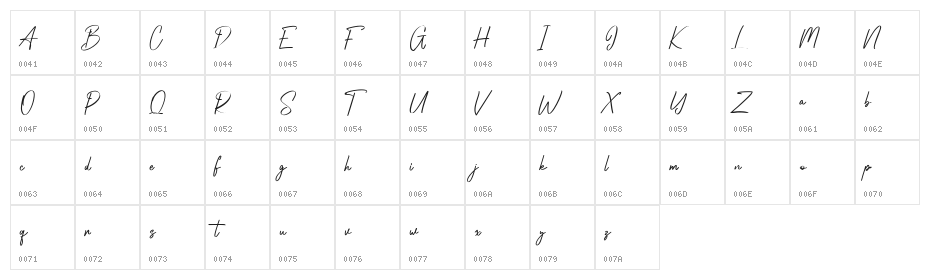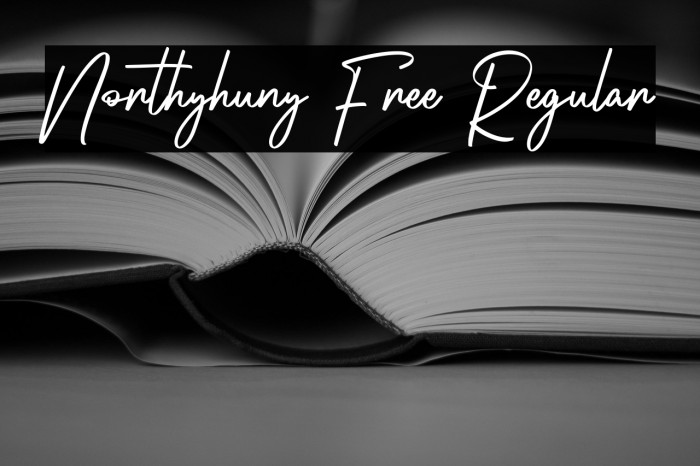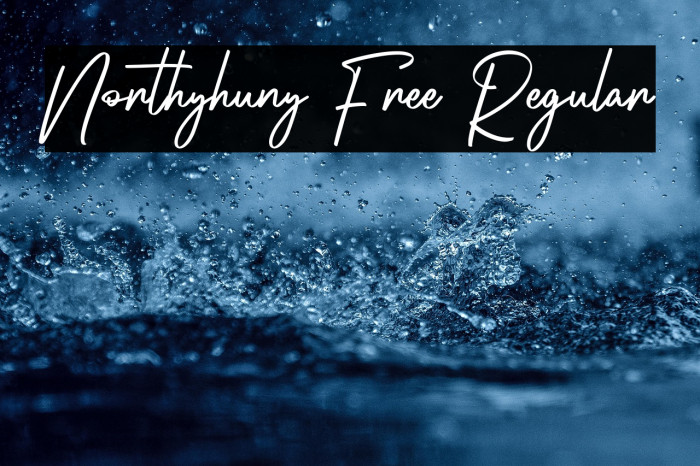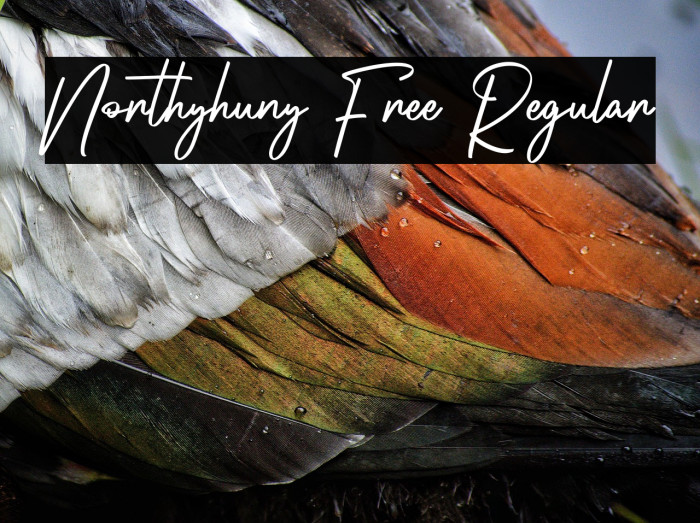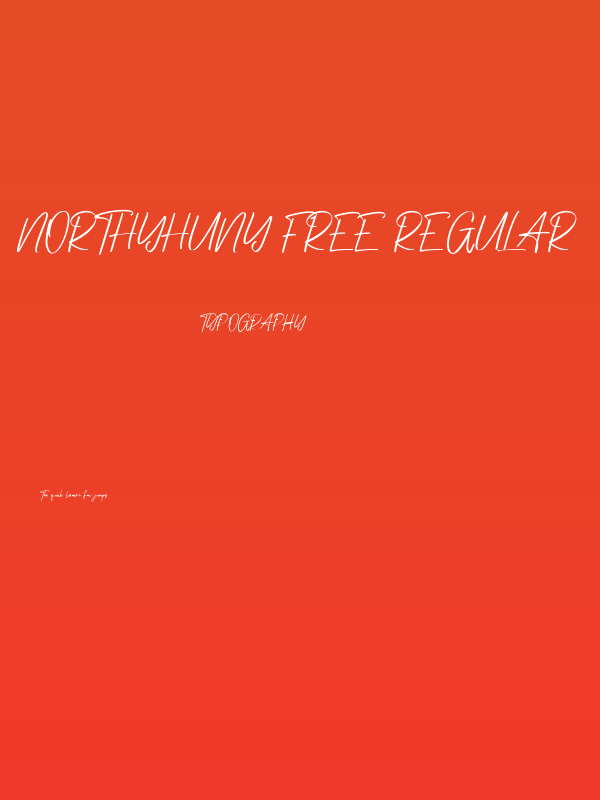
Northyhuny Free Regular Font
Northyhuny Free Regular Description
This font features a flowing, cursive style with elegant, elongated letterforms that convey a sense of sophistication and grace. The strokes are smooth and connected, giving it a handwritten appearance that is both personal and stylish. The uppercase letters are bold and prominent, while the lowercase letters maintain a consistent flow, enhancing readability. The font's overall design is modern yet timeless, making it versatile for various applications. Its unique character shapes and fluidity make it ideal for creative projects that require a touch of elegance.